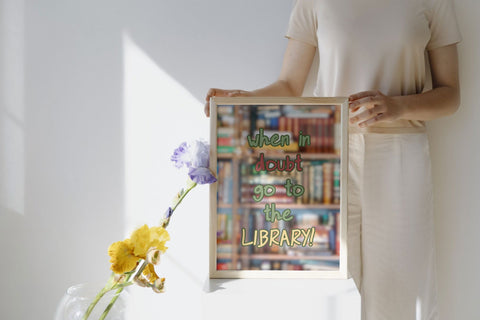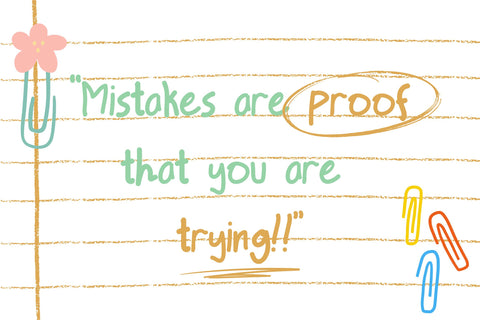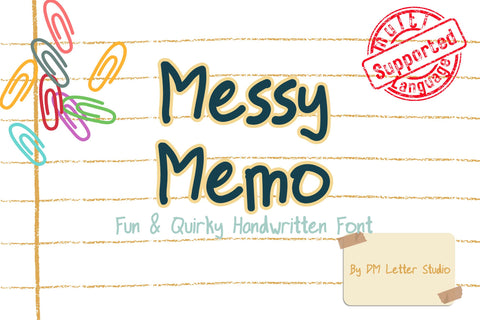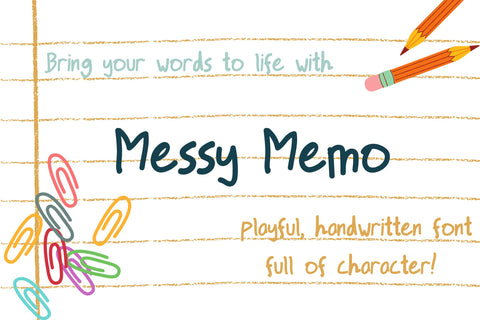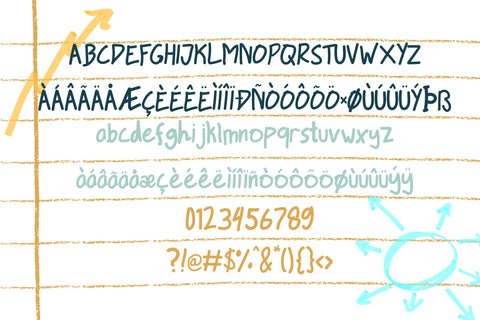
Messy Memo Font
Messy Memo – Fun & Quirky Handwritten Font
Messy Memo is a playful and expressive handwritten font with a carefree and natural look. Featuring irregular strokes and a casual feel, this font is perfect for journaling, social media posts, branding, greeting cards, and DIY projects. Its imperfect charm makes every design feel personal and unique.
- Handwritten & Quirky Style: A natural and playful script with an informal touch.
- Perfect for Fun & Casual Designs: Great for note-taking, creative branding, and social media content.
- Relaxed & Expressive Aesthetic: Adds personality and warmth to any project.
- Complete Character Set: Includes uppercase, lowercase, numbers, punctuation, and multilingual support.